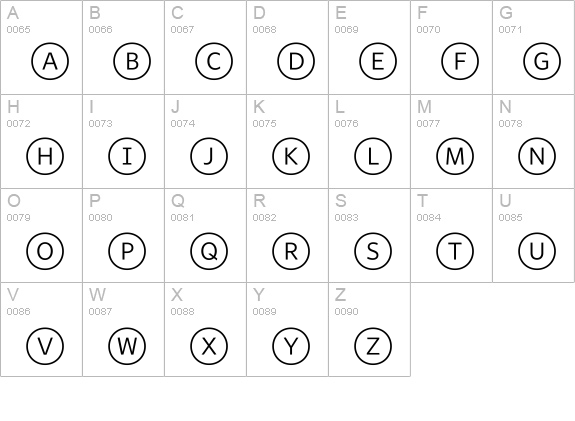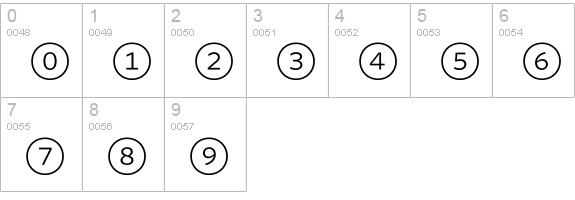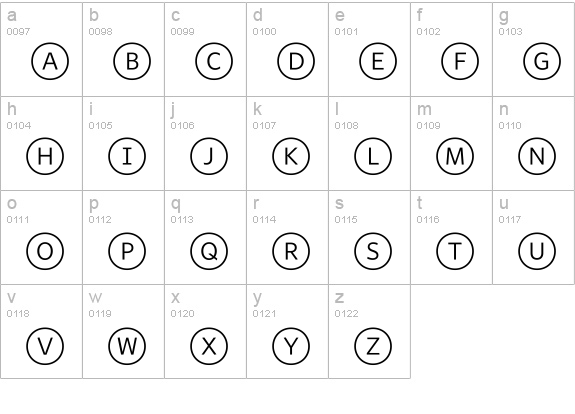
WhitneyIndexWhite-RoundLt1 font is a stunning display typeface that exudes elegance and sophistication. Its round and smooth letterforms add a touch of modernity, making it perfect for a wide range of design projects. This font is meticulously designed to capture attention and convey a sense of style and professionalism. With its sleek and contemporary appearance, WhitneyIndexWhite-RoundLt1 font is ideal for creating eye-catching headlines, logos, posters, and branding materials. Its versatility allows it to be used in both digital and print designs, ensuring a consistent and polished look across various platforms. One of the most remarkable aspects of WhitneyIndexWhite-RoundLt1 font is that it is available for free download at FontsMarket.com. This means that designers, creatives, and enthusiasts can easily access and utilize this exceptional font without any financial barriers. Its availability as a free resource makes it an invaluable asset for individuals and businesses looking to enhance their visual communication. By incorporating WhitneyIndexWhite-RoundLt1 font into your projects, you can elevate the overall aesthetic and create a lasting impression. Whether you're designing a website, crafting a unique brand identity, or adding a touch of elegance to your printed materials, this font will undoubtedly make a statement. Don't miss out on the opportunity to enhance your designs with the beauty and versatility of WhitneyIndexWhite-RoundLt1 font. Download it for free at FontsMarket.com and unlock a world of creativity and endless possibilities.